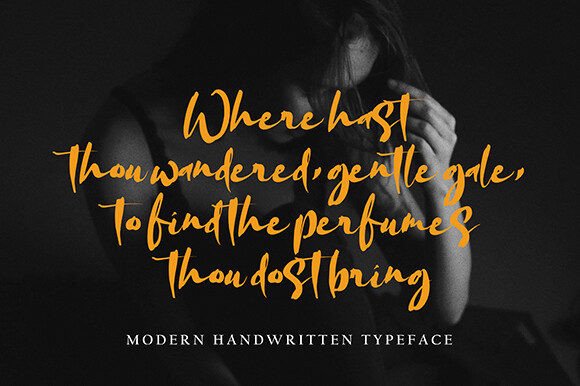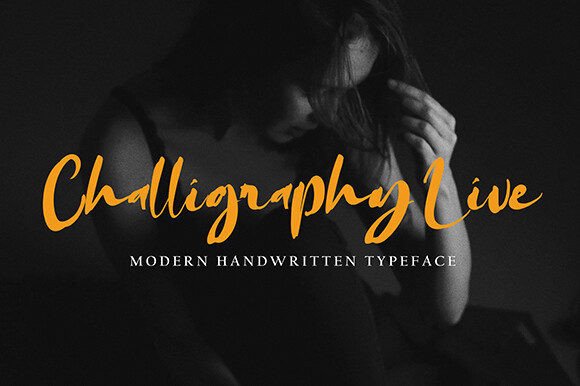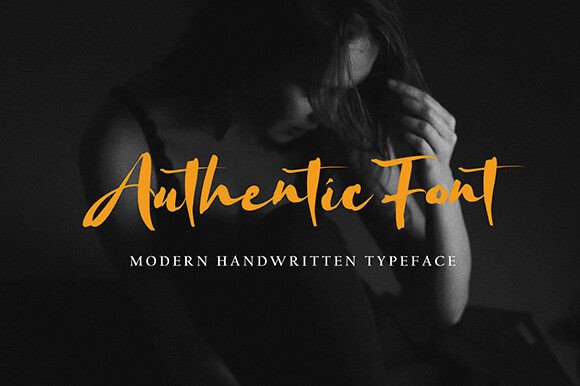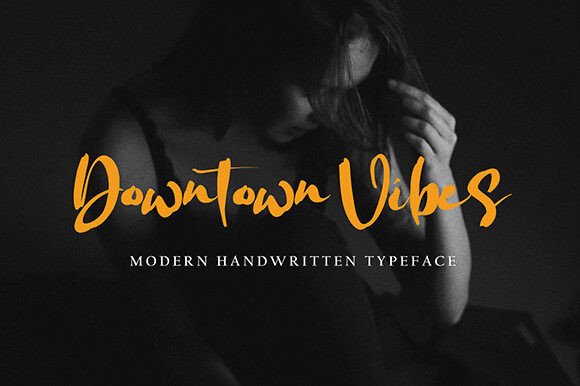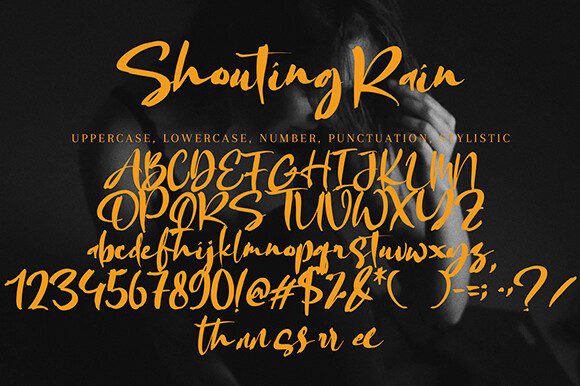
Introduction to Shouting Rain Font
Shouting Rain is an exquisite handwritten font, masterfully designed to become a true favorite.
Key Features of Shouting Rain Font